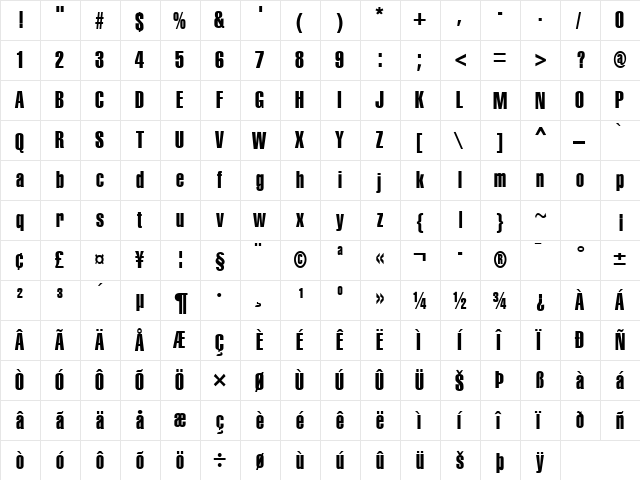
Corporate Compressed Extra Regular
Design Context for Corporate Compressed Extra Typeface
Corporate Compressed Extra offers clean, dependable letterforms without strong stylistic allegiance, making it a practical choice for designers who need flexibility.